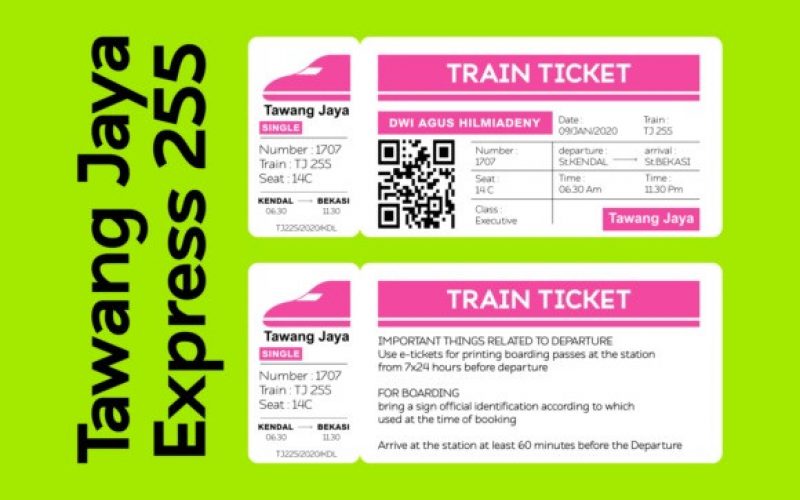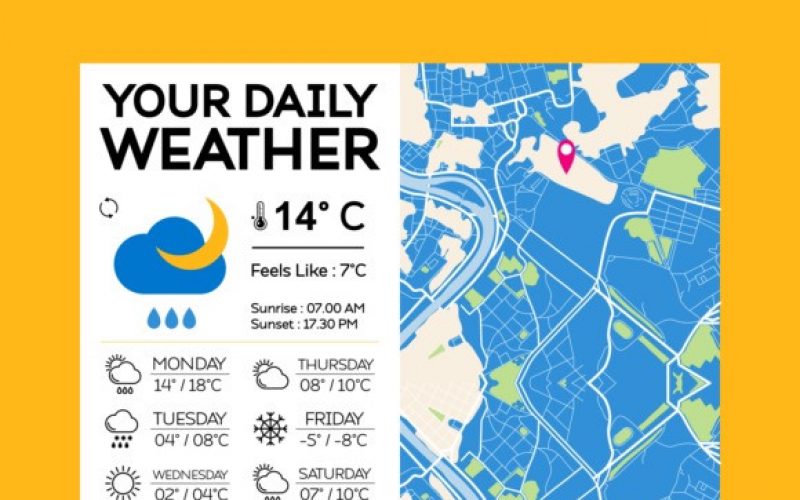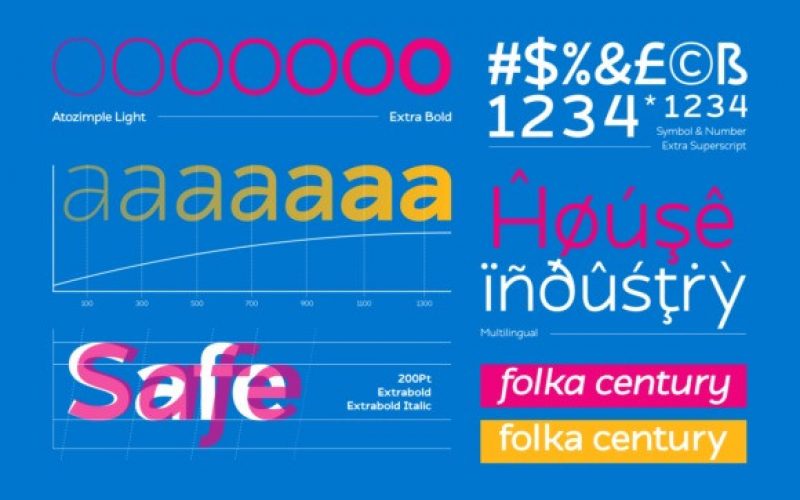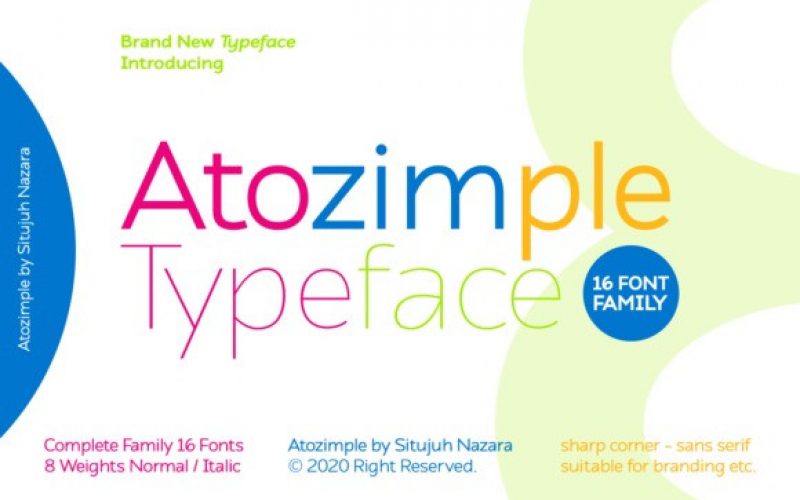
Atozimple Sans Serif Font
Atozimple is a stunning sans serif font family, consisting out of 16 styles fonts.
The Atozimple font is extremely legible and works great for print & web. This versatile family will add a unique look to your project.